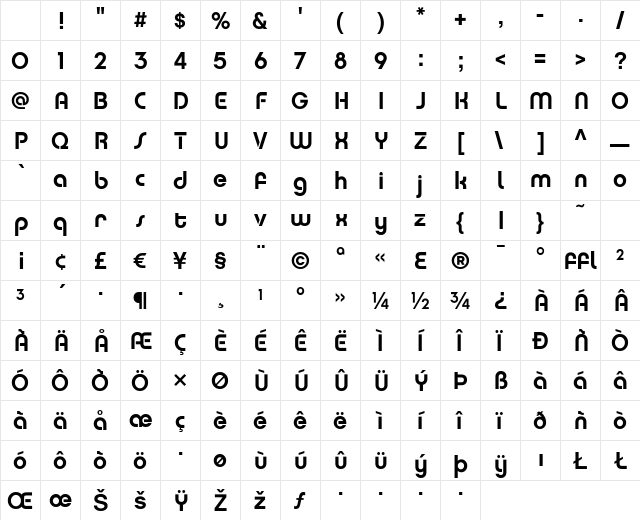
Chalet Tokyo Regular
Design Context for Chalet Tokyo
Chalet Tokyo is a composed and adaptable typeface that performs quietly and consistently across a wide range of design contexts.